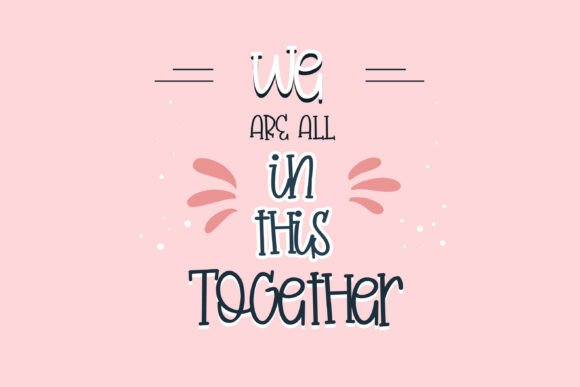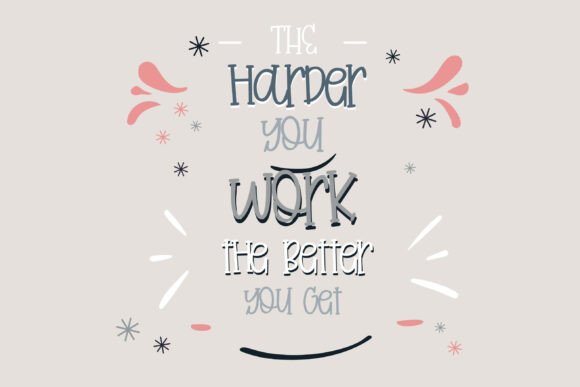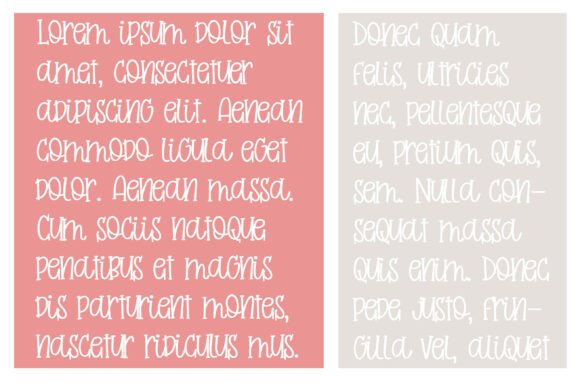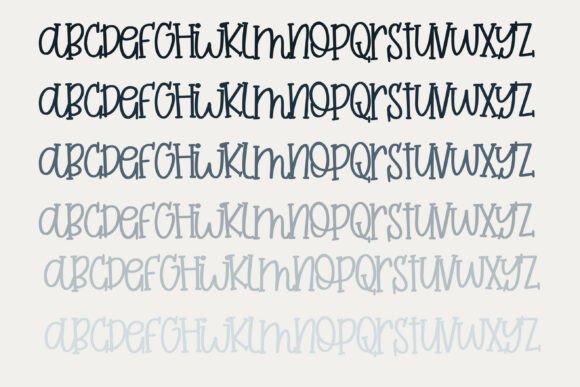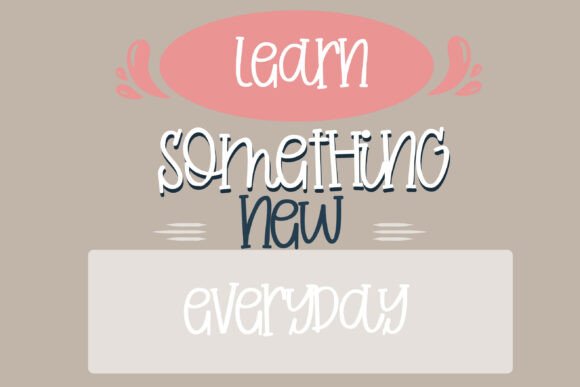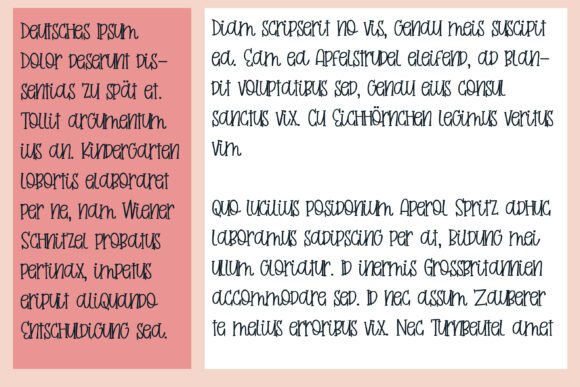
Introduction to Mameluke Font
Mameluke is a lively hand-written print font with soft serifs and cheerful curves.
Friendly and inviting, itโs a great choice for childrenโs books, fun branding, product packaging, and playful illustrations .
Key Features of Mameluke Font
Why Choose Mameluke Font?